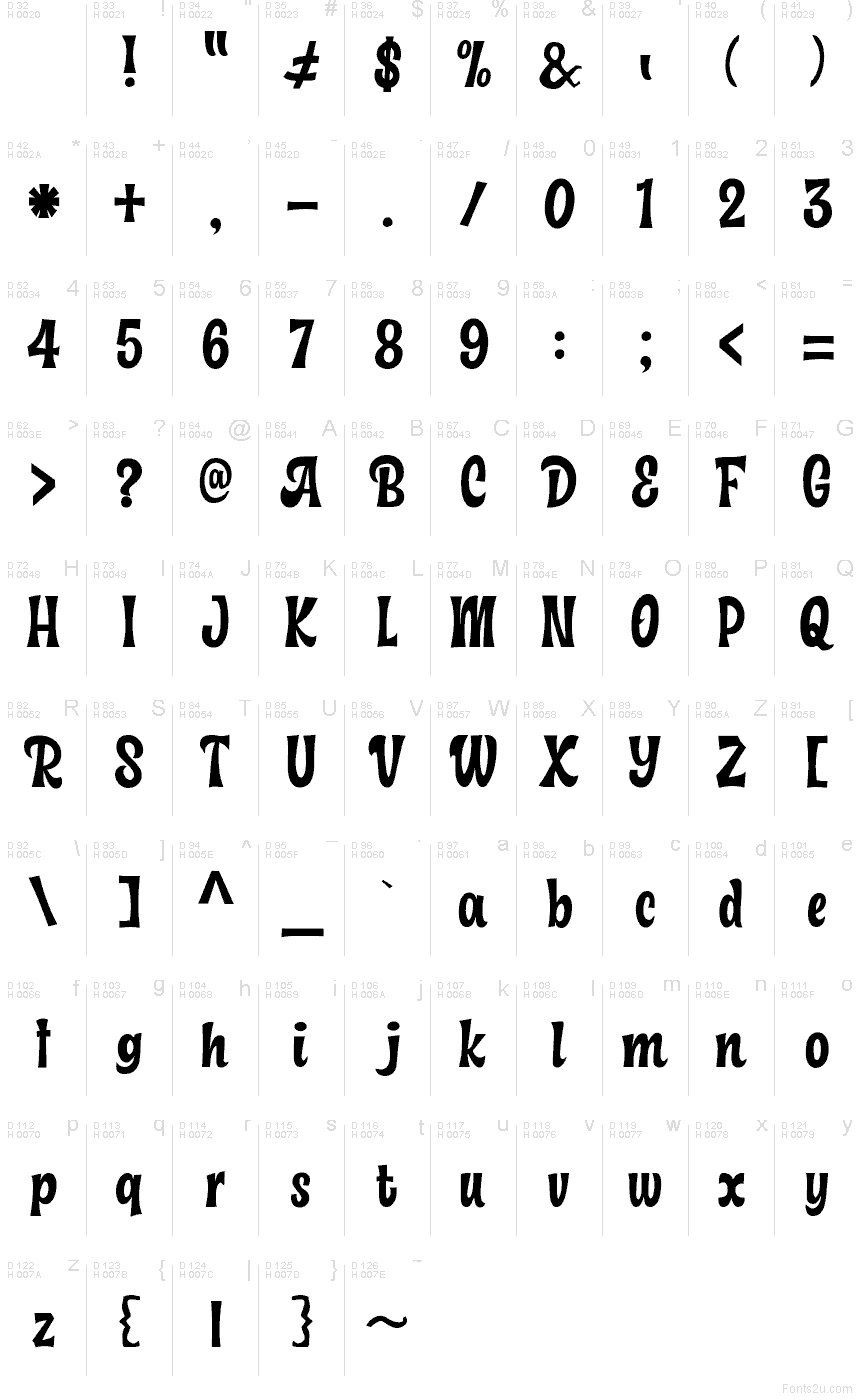
Mr Lucky Clover
Mr Lucky Clover by BlackFridayFont is a free retro brush font with a tall, elastic rhythm and a wink of 1960s poster lettering. The letters stretch and swell in dramatic strokes, mixing narrow joins with broad, soft curves so the whole font feels buoyant, playful, and slightly theatrical.
It fits music flyers, pub signs, packaging, cover lines, and title cards where a short phrase needs that loose, lucky swagger. As a free font, it also works well for logos, monograms, and drop caps, because the exaggerated rise and fall of the strokes gives even a few letters plenty of attitude.